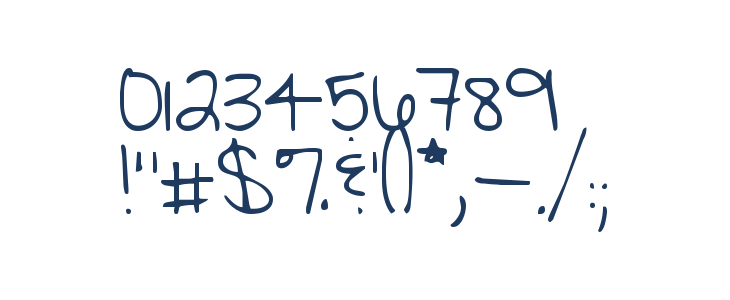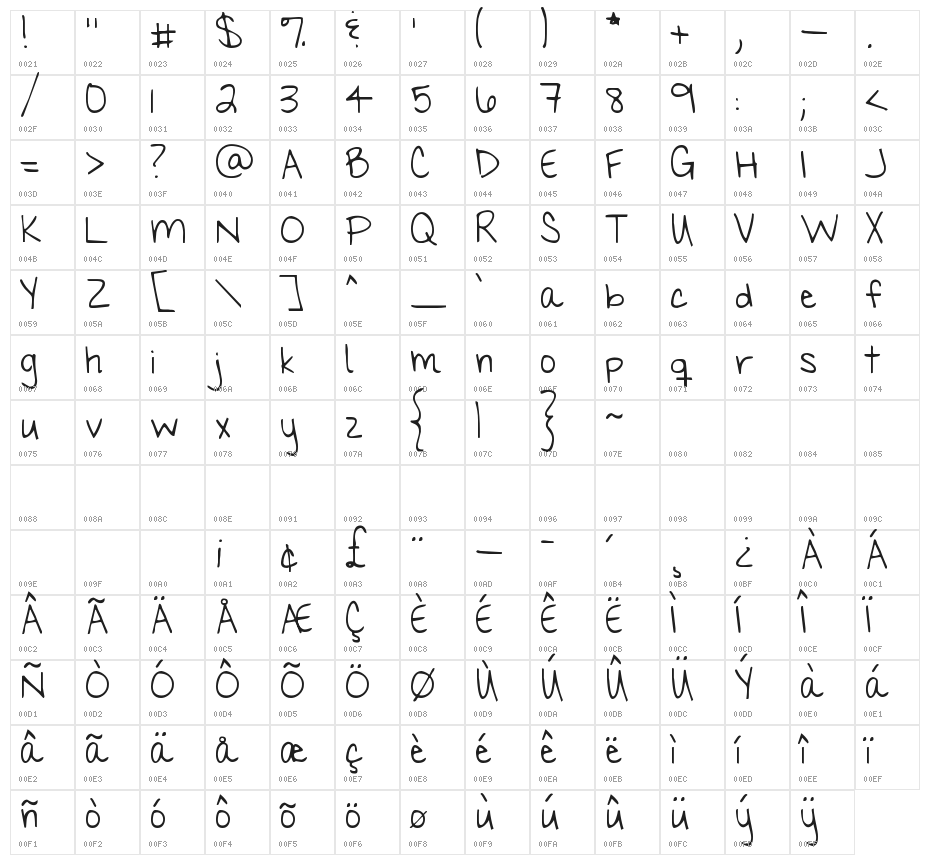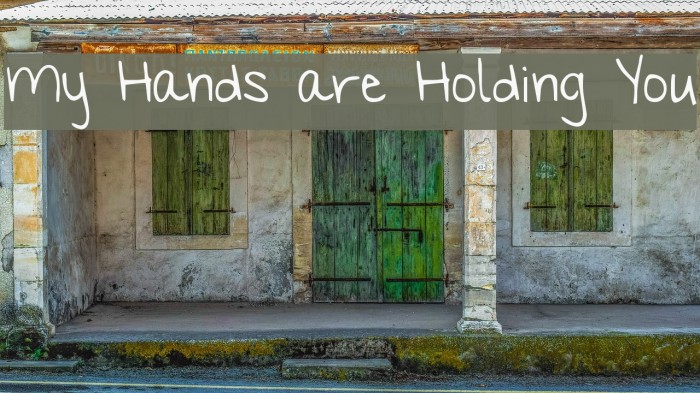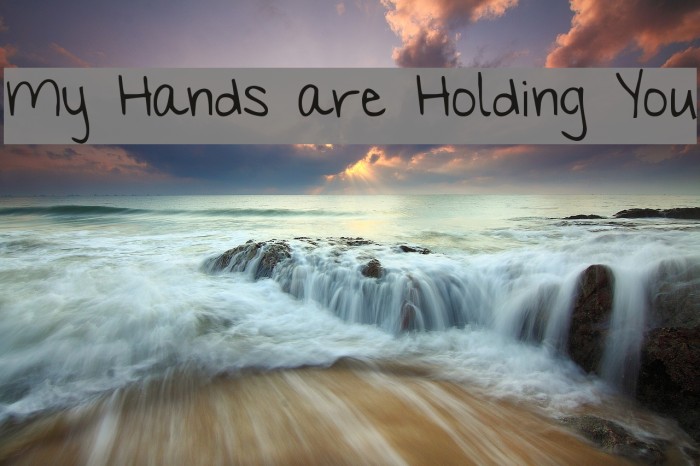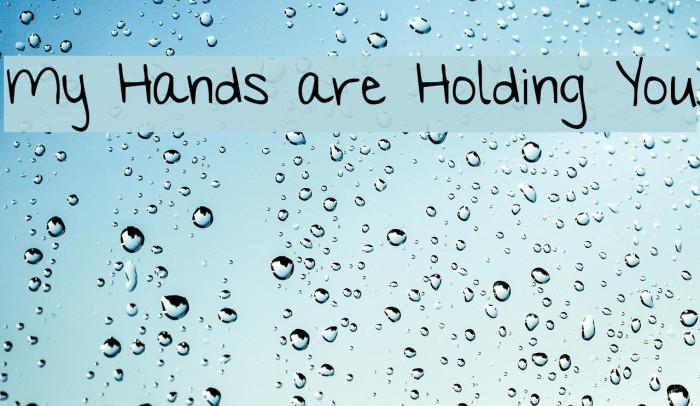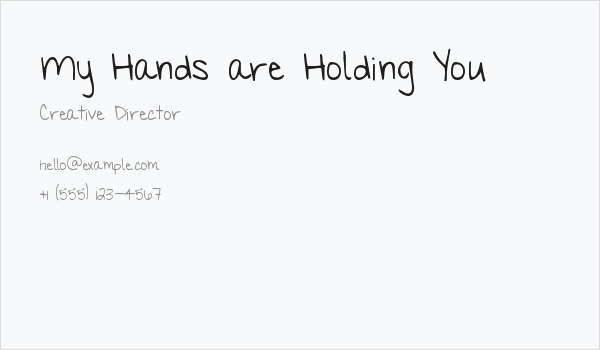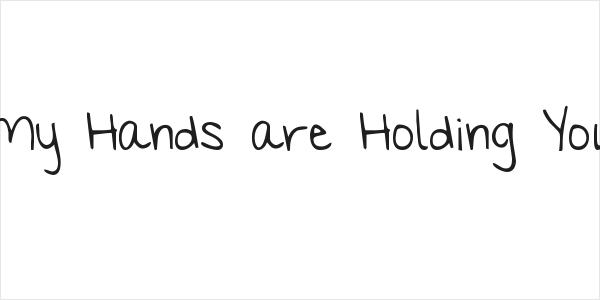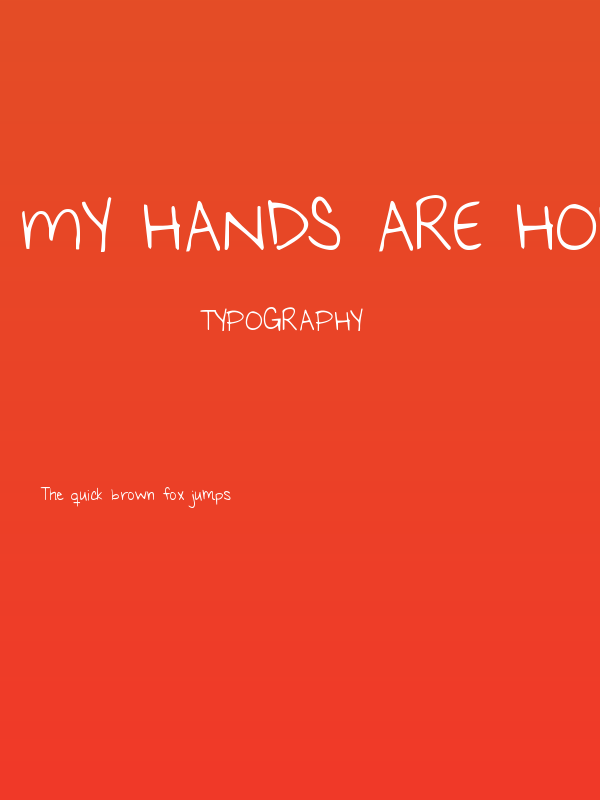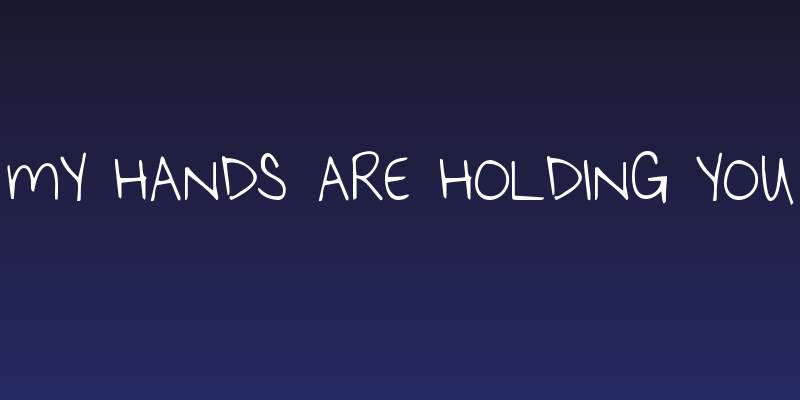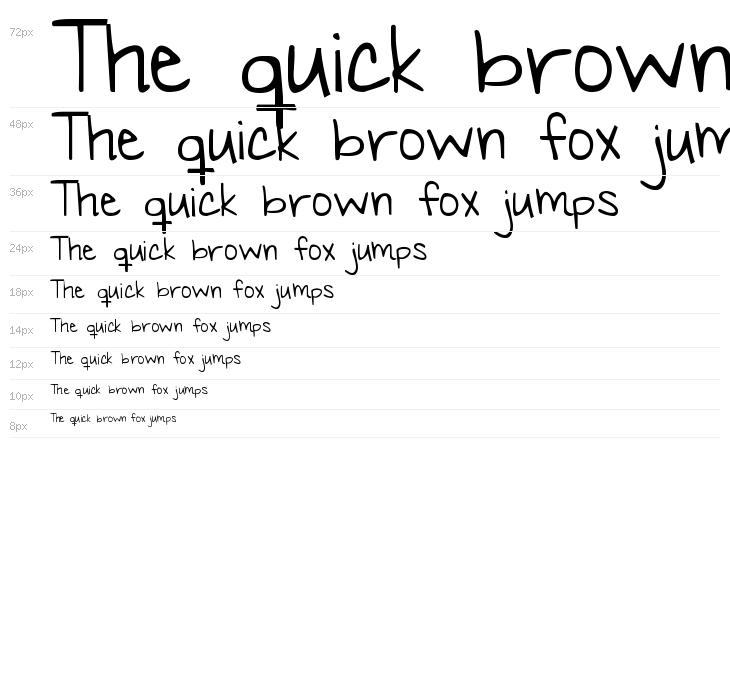
My Hands are Holding You Font
My Hands are Holding You Description
This font features a playful and informal handwritten style, characterized by its irregular and slightly whimsical letterforms. The strokes are smooth and fluid, giving it a casual and friendly appearance. The uppercase and lowercase letters maintain a consistent style, with rounded edges and a slight tilt, enhancing its approachable feel. The numerals and special characters follow the same playful design, making it versatile for various creative applications. Its overall look is reminiscent of personal notes or doodles, perfect for projects that require a touch of personality and warmth.
| Proposed Projects | Ideal for greeting cards, children's books, personal blogs, and creative branding projects. |